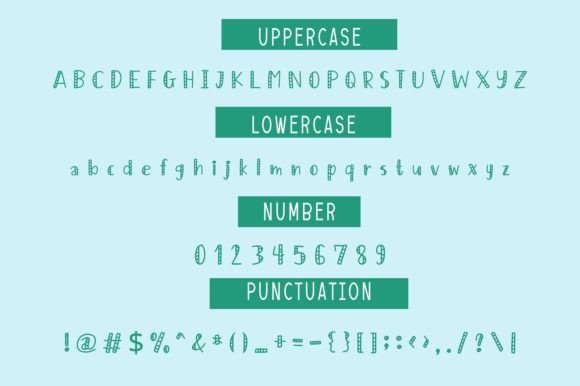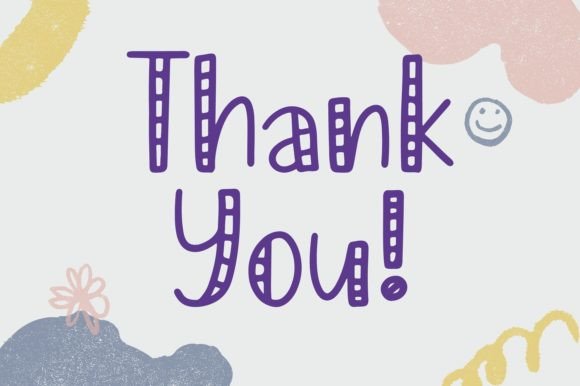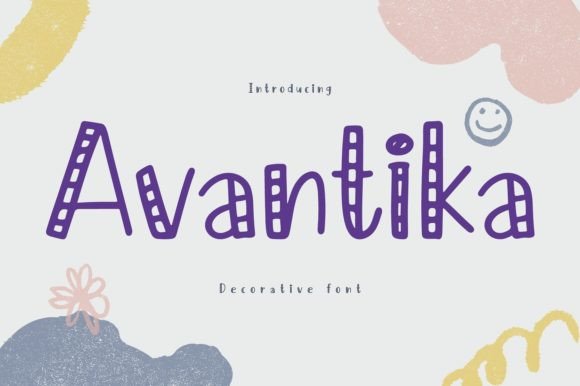
Introducing Avantika Font: The Ultimate Choice for Creative Projects
Are you a designer, crafter, or DIY enthusiast looking for a font that embodies playfulness and authenticity? Look no further than Avantika Font! This adorable decorative font is perfect for adding a touch of whimsy and charm to your favorite projects, from blog posts and logos to invitations and greeting cards.
What is Avantika Font?
Avantika Font is a unique and creative typeface that is designed to bring a sense of fun and personality to your designs. With its playful and authentic feel, this font is ideal for anyone who wants to add a touch of elegance and sophistication to their work. Whether you’re a professional designer or a DIY enthusiast, Avantika Font is the perfect choice for a wide range of projects.
What Makes Avantika Font So Special?
Avantika Font stands out from other fonts due to its unique and distinctive style. Here are just a few reasons why this font is so special:
- Playful and Authentic: Avantika Font has a playful and authentic feel that makes it perfect for designs that require a touch of personality and whimsy.
- Versatile: This font is incredibly versatile and can be used for a wide range of projects, from blog posts and logos to invitations and greeting cards.
- Elegant and Sophisticated: Despite its playful feel, Avantika Font also has an elegant and sophisticated side that makes it perfect for designs that require a touch of class and refinement.
How to Use Avantika Font in Your Designs
Avantika Font is incredibly easy to use and can be incorporated into your designs in a variety of ways. Here are just a few ideas to get you started:
- Blog Posts: Add a touch of personality to your blog posts with Avantika Font. Use it for headings, subheadings, or even entire paragraphs.
- Logos and Branding: Create a unique and memorable logo for your business or brand with Avantika Font. This font is perfect for creating a distinctive and recognizable brand identity.
- Invitations and Greeting Cards: Add a touch of elegance and sophistication to your invitations and greeting cards with Avantika Font. This font is perfect for creating beautiful and eye-catching designs.
- Planners and Photo Albums: Use Avantika Font to add a touch of personality to your planners and photo albums. This font is perfect for creating fun and colorful designs.
Why Designers and Crafters Love Avantika Font
Avantika Font has quickly become a favorite among designers and crafters due to its unique and versatile style. Here are just a few reasons why:
- Easy to Read: Avantika Font is incredibly easy to read, making it perfect for designs that require a clear and legible font.
- Highly Customizable: This font is highly customizable, allowing you to adjust the size, color, and style to suit your design needs.
- Unique and Distinctive: Avantika Font has a unique and distinctive style that sets it apart from other fonts. This makes it perfect for designers and crafters who want to create unique and eye-catching designs.
Avantika Font is a versatile and creative font that is perfect for designers, crafters, and DIY enthusiasts. With its playful and authentic feel, this font is ideal for a wide range of projects, from blog posts and logos to invitations and greeting cards. Whether you’re looking to add a touch of elegance and sophistication or a dash of whimsy and personality, Avantika Font is the perfect choice. So why wait? Add Avantika Font to your designs today and enjoy the results!
With Avantika Font, you can:
- Create unique and eye-catching designs that stand out from the crowd.
- Add a touch of personality and whimsy to your designs.
- Enjoy a highly customizable font that can be adjusted to suit your design needs.